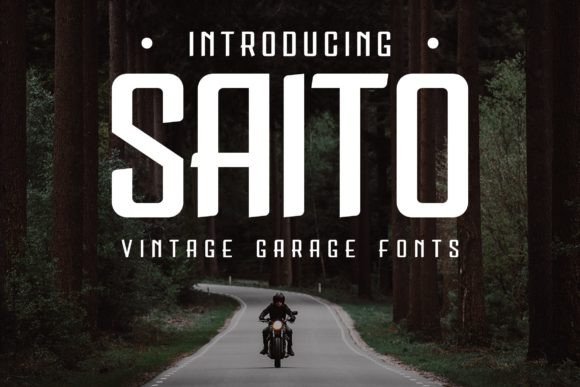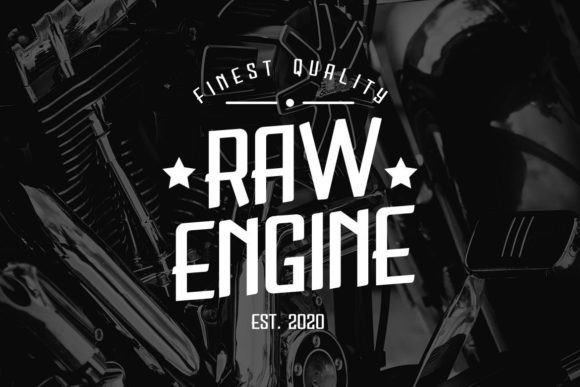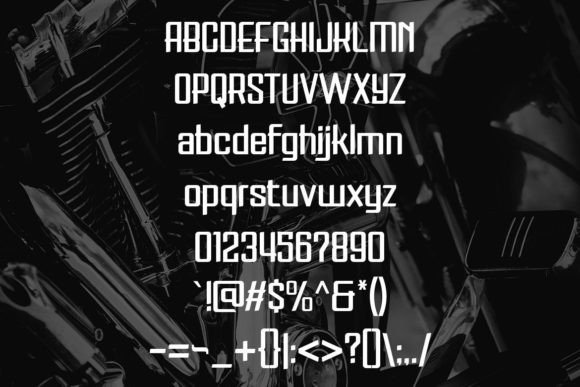
Saito Font: A Bold Display Font for Vintage & Retro Branding
About the Saito Font
Unleash your creativity with Saito Font, a versatile font perfect for a wide range of applications. With a manly vibe with strong characters in every letter, Saito is defined as a masculine font for your design needs. As easy as starting the engine for your vintage motorcycle branding tools, and of course other concepts that need a strong masculine touch, Saito is an easy way to go out.
Saito Font Usage Examples
Saito Font Example